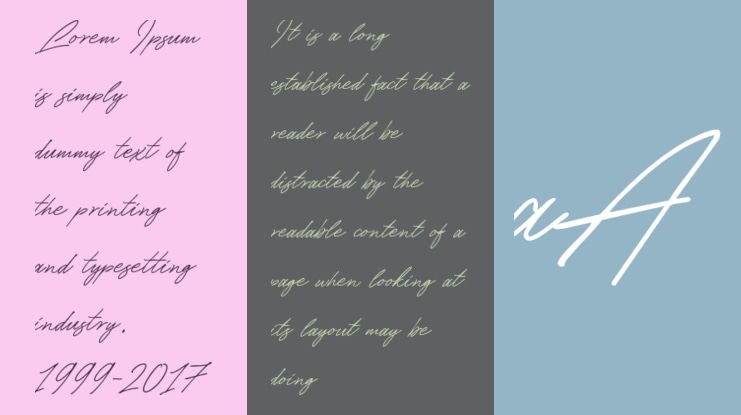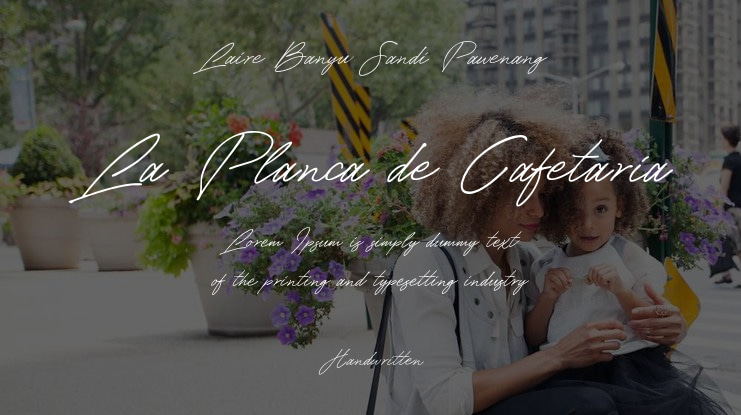
Laire Banyu Sandi Pawenang
La Planca de Cafetaria is a modern font duo that blends the
sophistication of an elegant sans serif with the charm of a handwritten
script. Designed to deliver an aesthetic, clean, and timeless look, this
font is the perfect choice for creative projects that need both a
professional and personal touch.